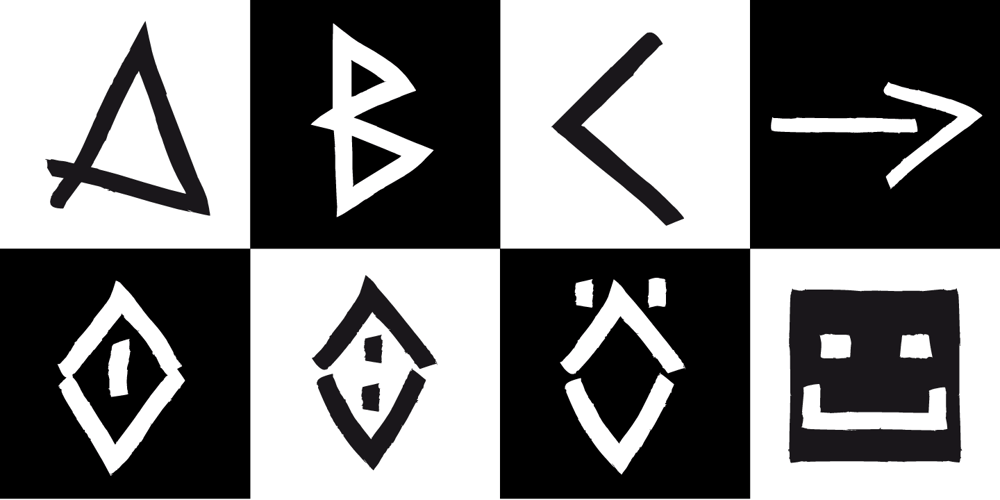
Raw Delta Hand Street Font Family was designed by Manuel Viergutz and published by TypoGraphicDesign. Raw Delta Hand Street contains 2 styles and family package options. The typeface Raw Delta Hand Street is designed in 2012 for the font foundry Typo Graphic Design by Manuel Viergutz. The rough hand-made geometric typeface based on a triangle shape with a dirty DIY street style. 432+ glyphs incl. 50+ decorative extras like icons, arrows, dingbats, emojis, symbols, geometric shapes, decorative ligatures (type the word LOVE for ❤ or SMILE for ☺ as OpenType-Feature dlig) and stylistic alternates. For use in logos, magazines, posters, advertisement and packaging plus as webfont for decorative headlines. The font works best for display size. Have fun with this font & use the DEMO-FONT (with reduced glyph-set) FOR FREE!